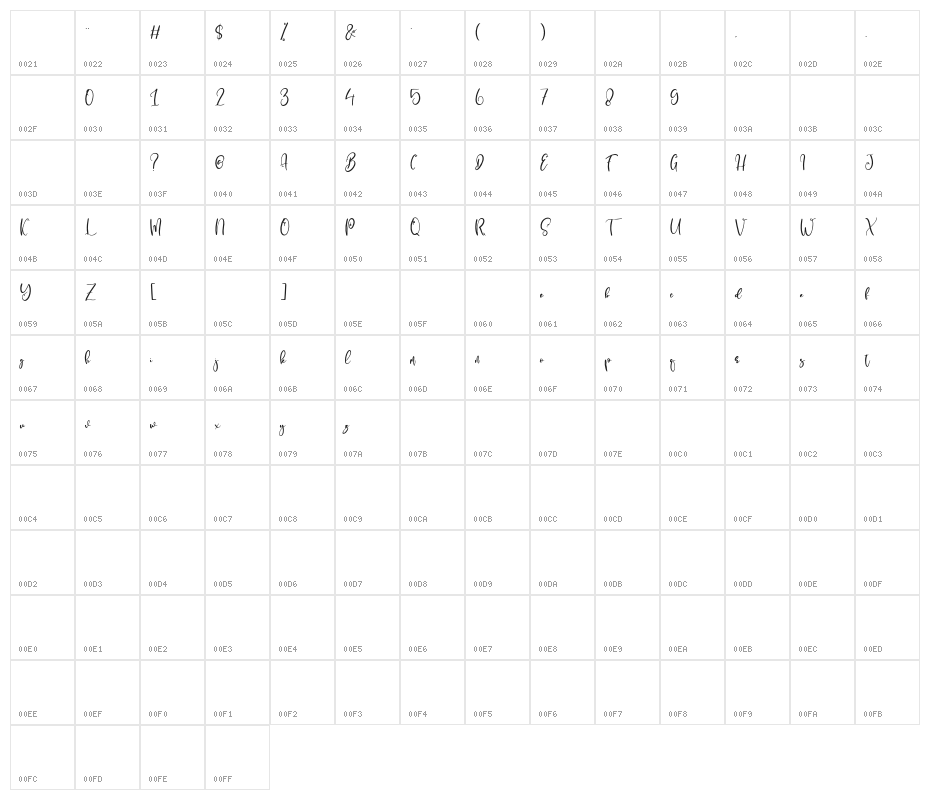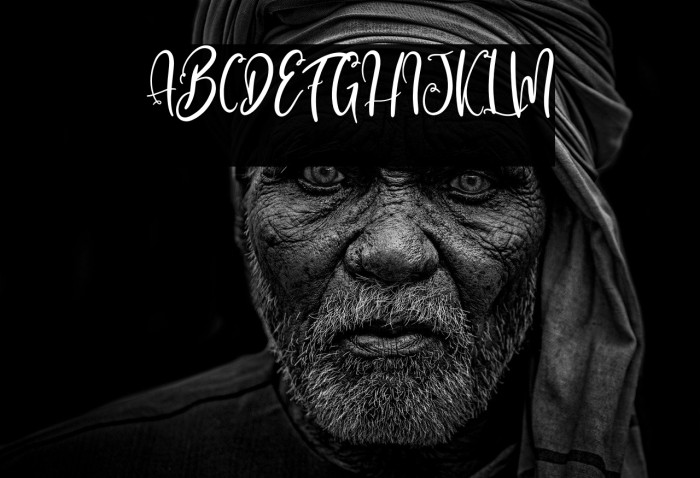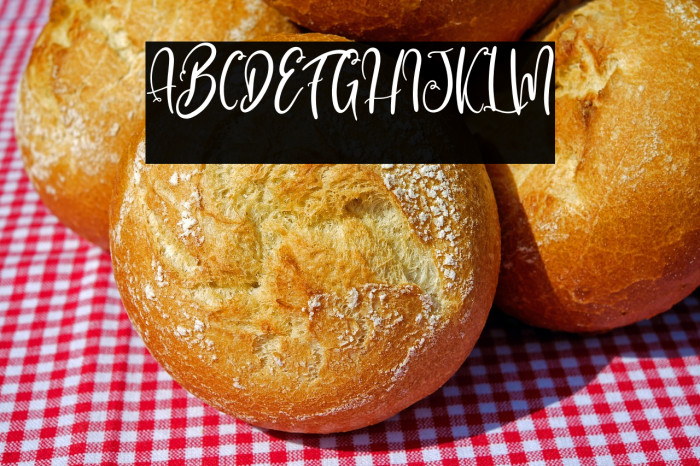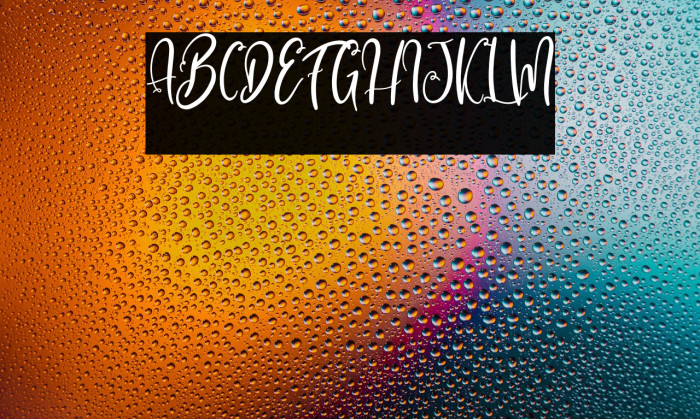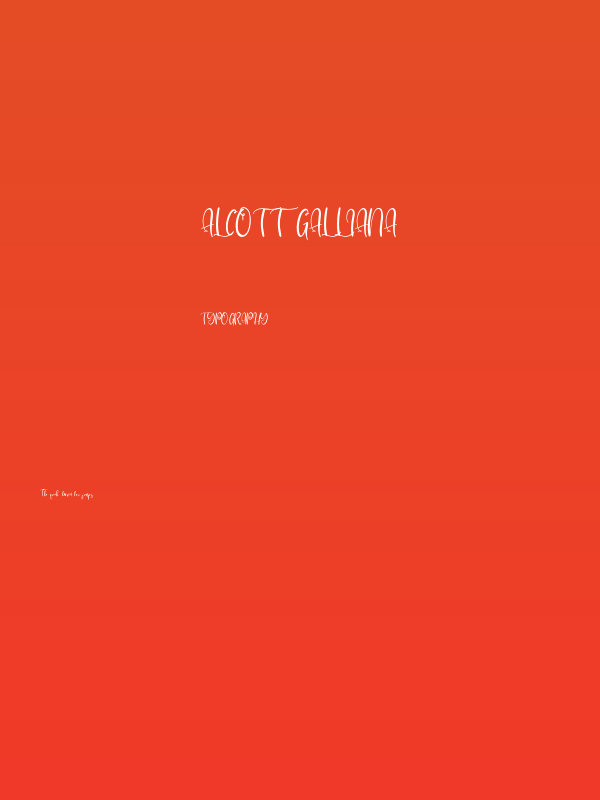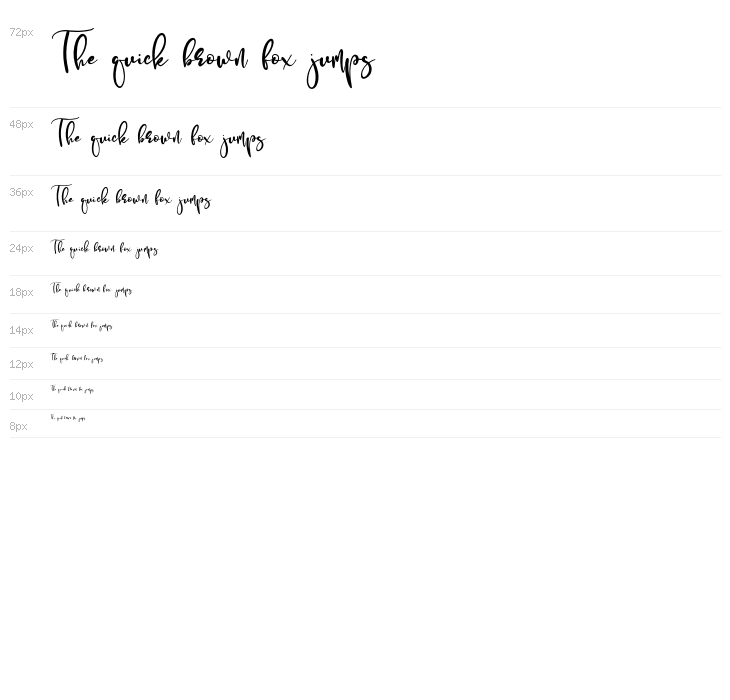
Alcott Galliana Font
Alcott Galliana Description
This font features an elegant, flowing script style that combines both uppercase and lowercase letters with a sense of fluidity and grace. The uppercase letters are tall and slightly narrow, with a distinctive flair that adds a touch of sophistication. The lowercase letters maintain a consistent flow, with some characters featuring unique loops and swirls that enhance the overall aesthetic. The numerals are clear and legible, maintaining the same elegant style as the letters. Special characters are also included, with a design that complements the script's overall look. This font is perfect for projects that require a touch of elegance and style.